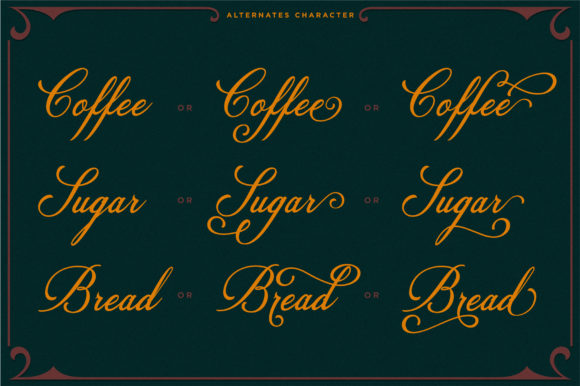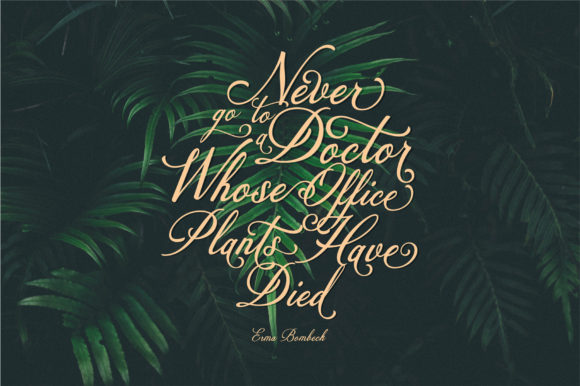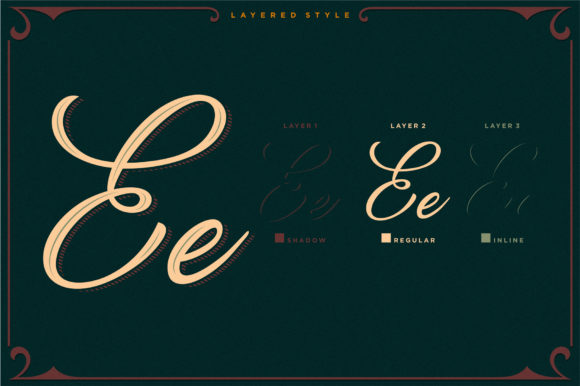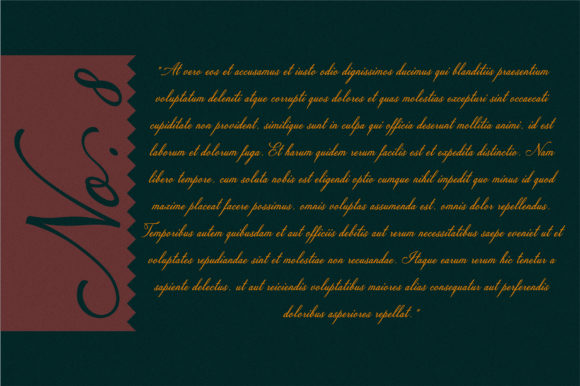
Introduction to Colesberg Font
Colesberg delivers an incredibly bold and beautiful vintage script featuring gorgeous swashes.
Use it to add a layer of sophistication to any design project .
Key Features of Colesberg Font